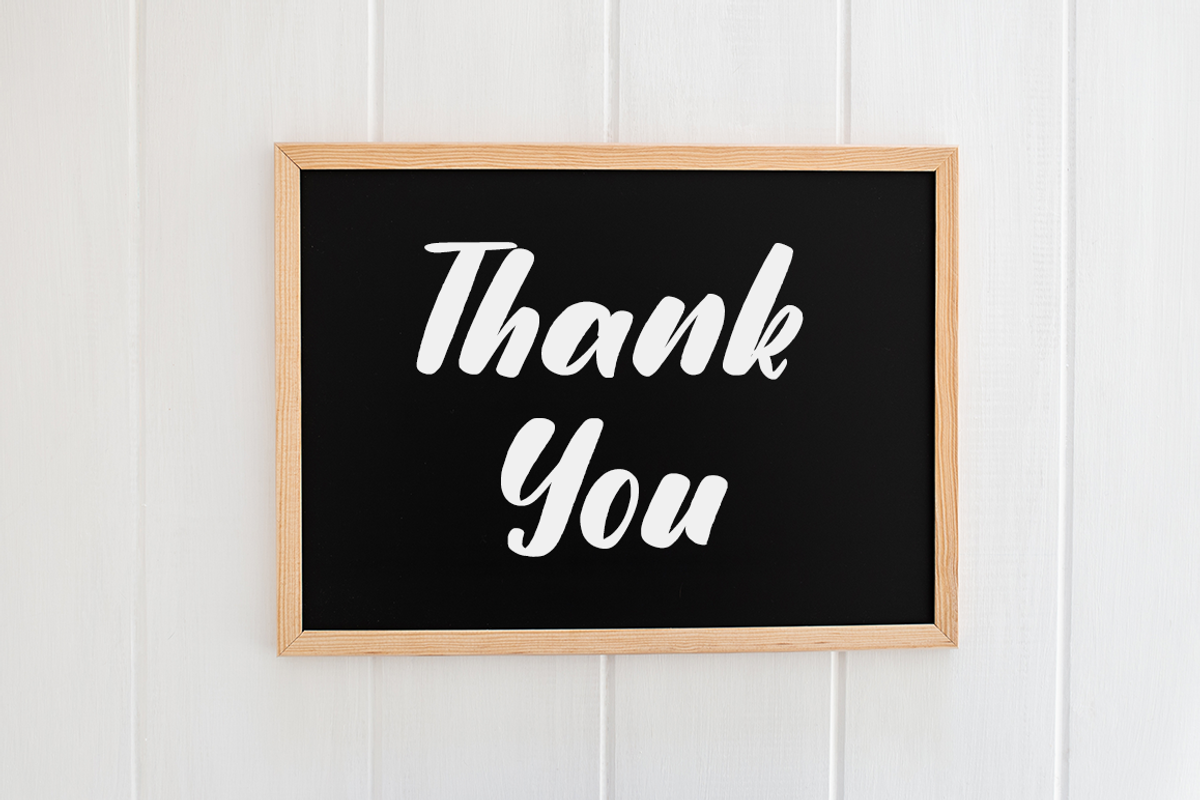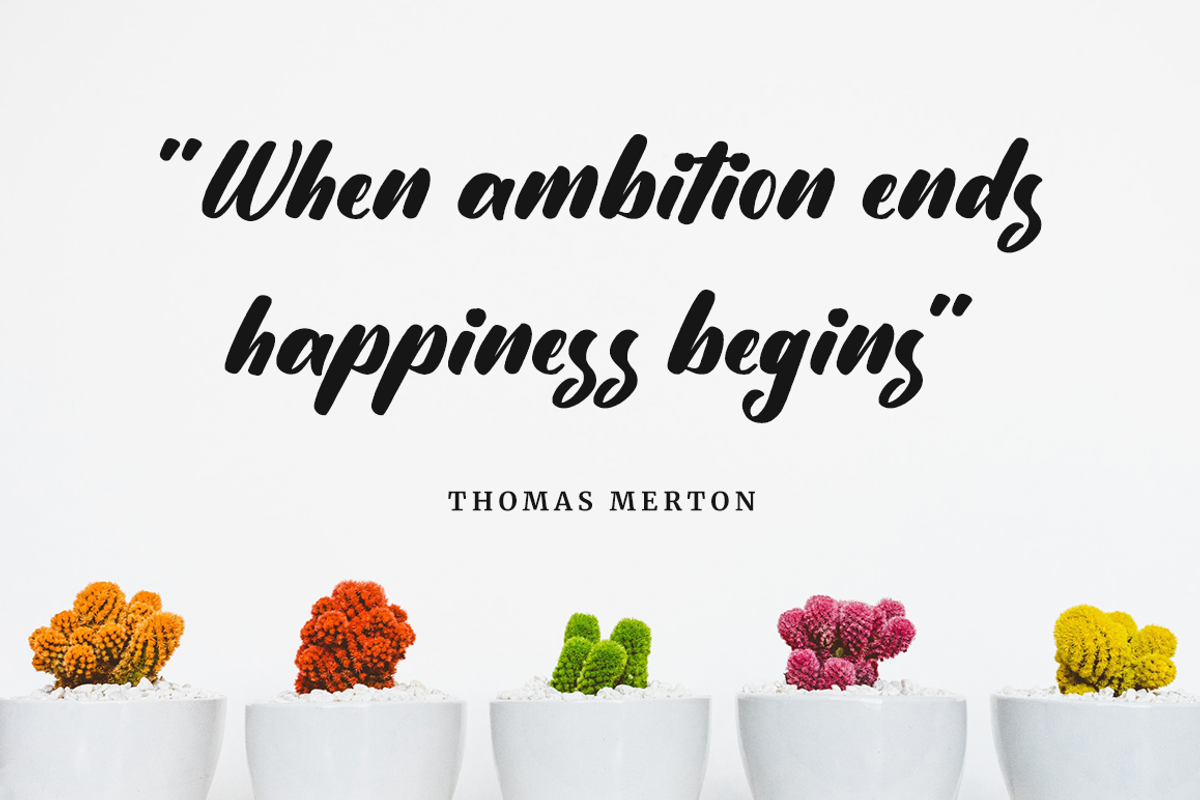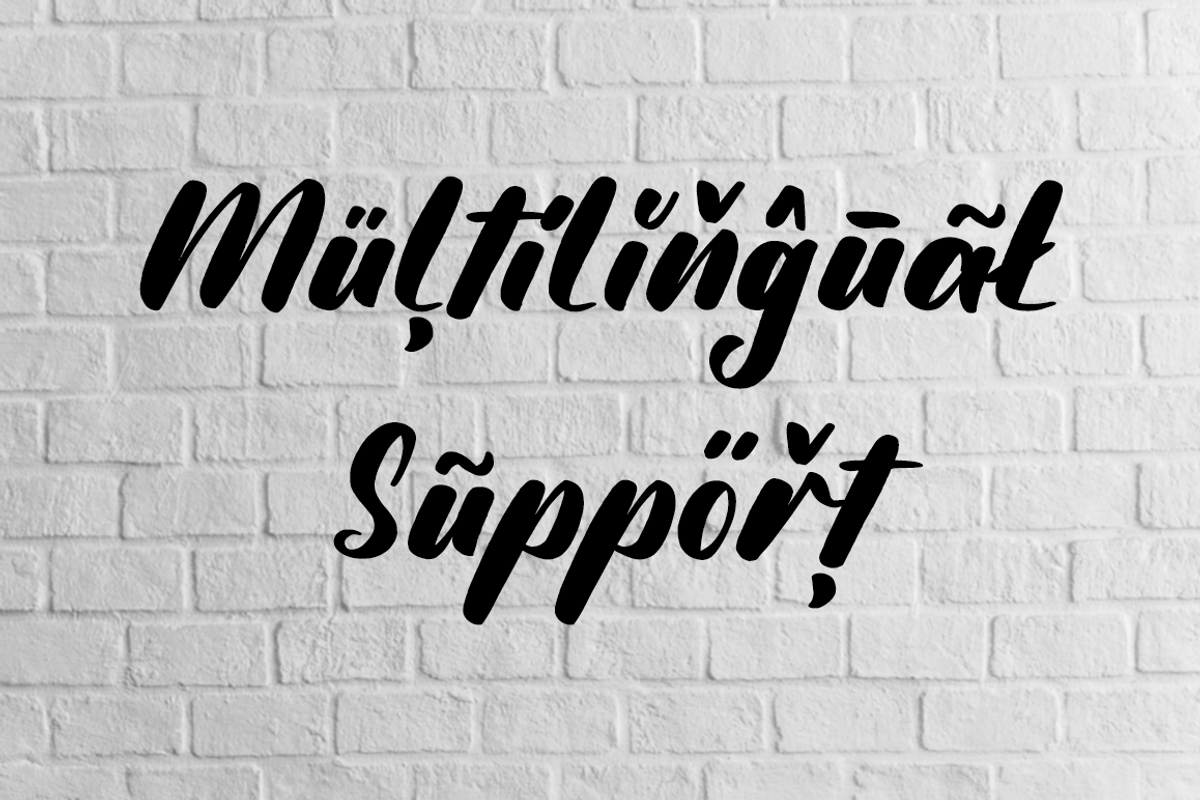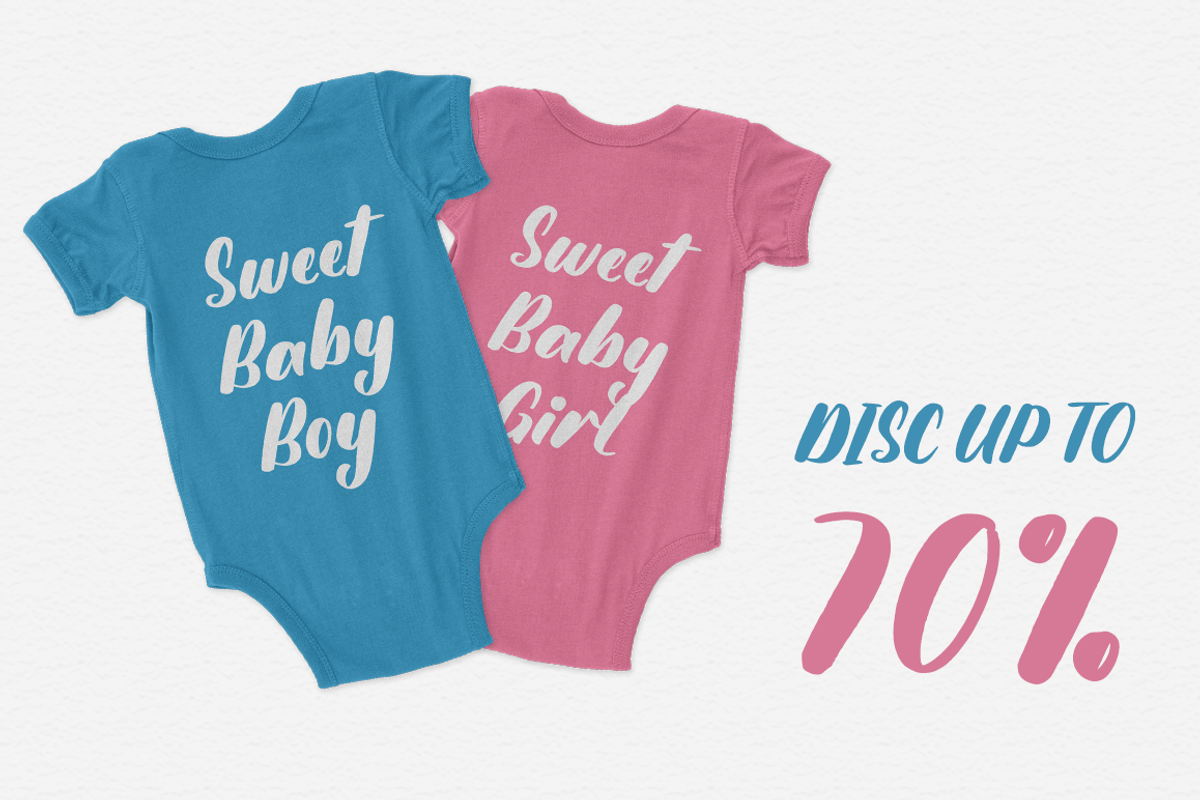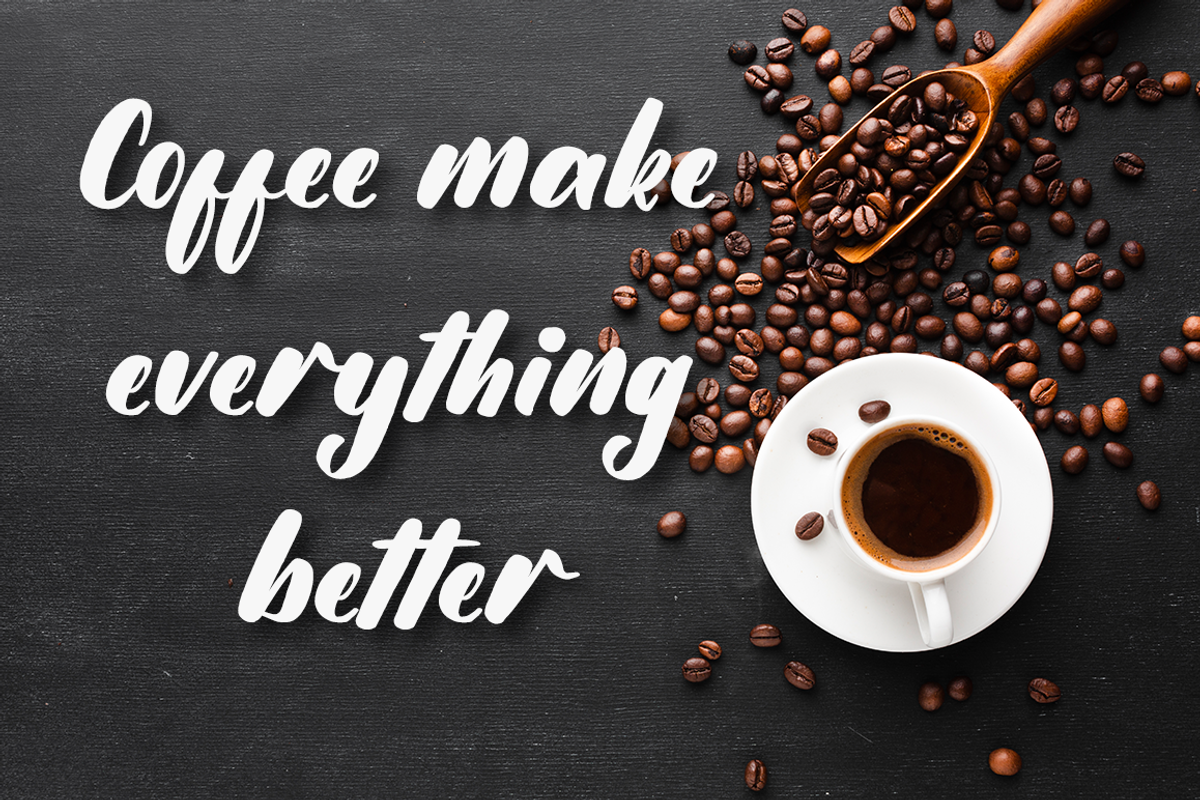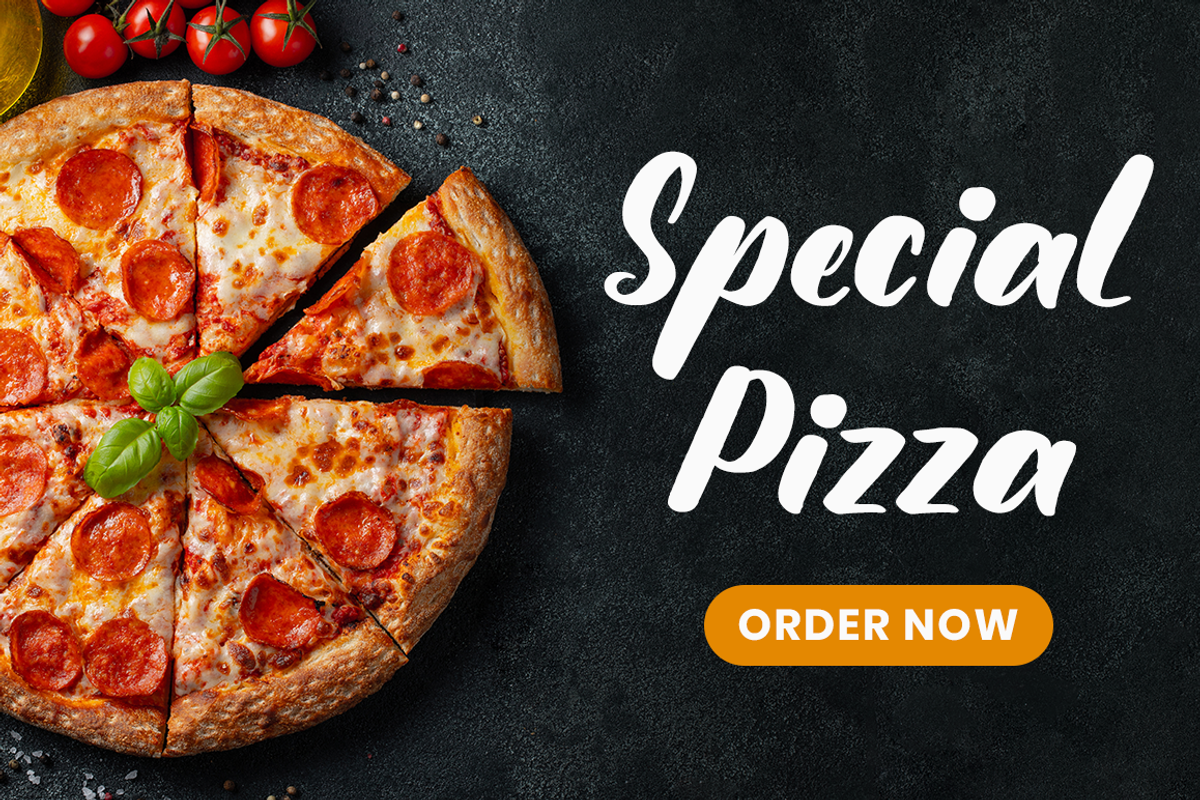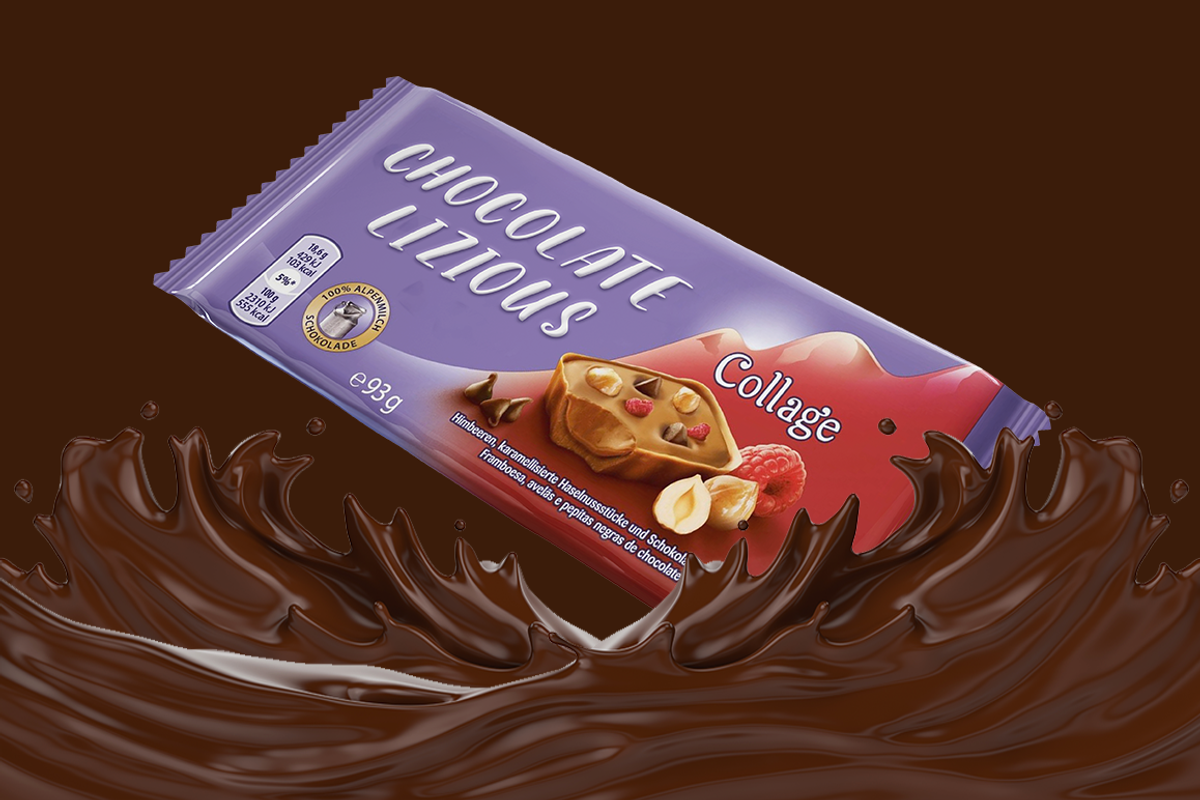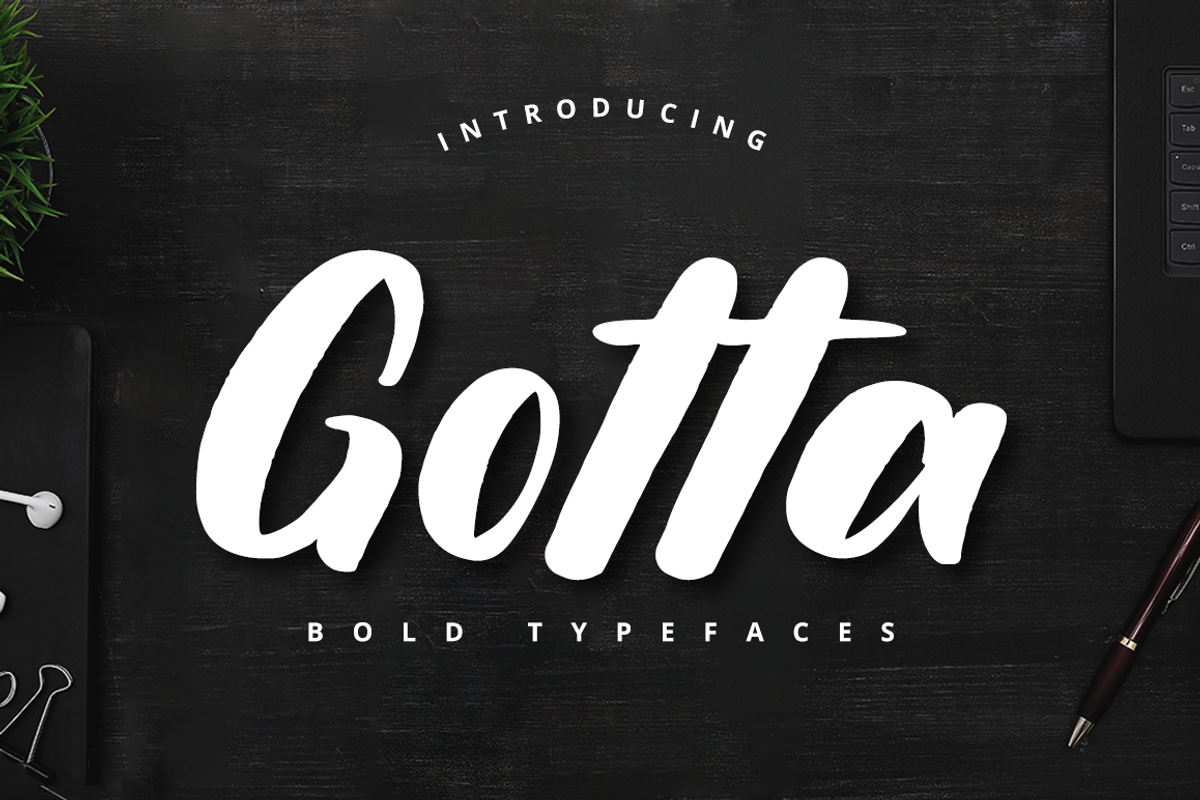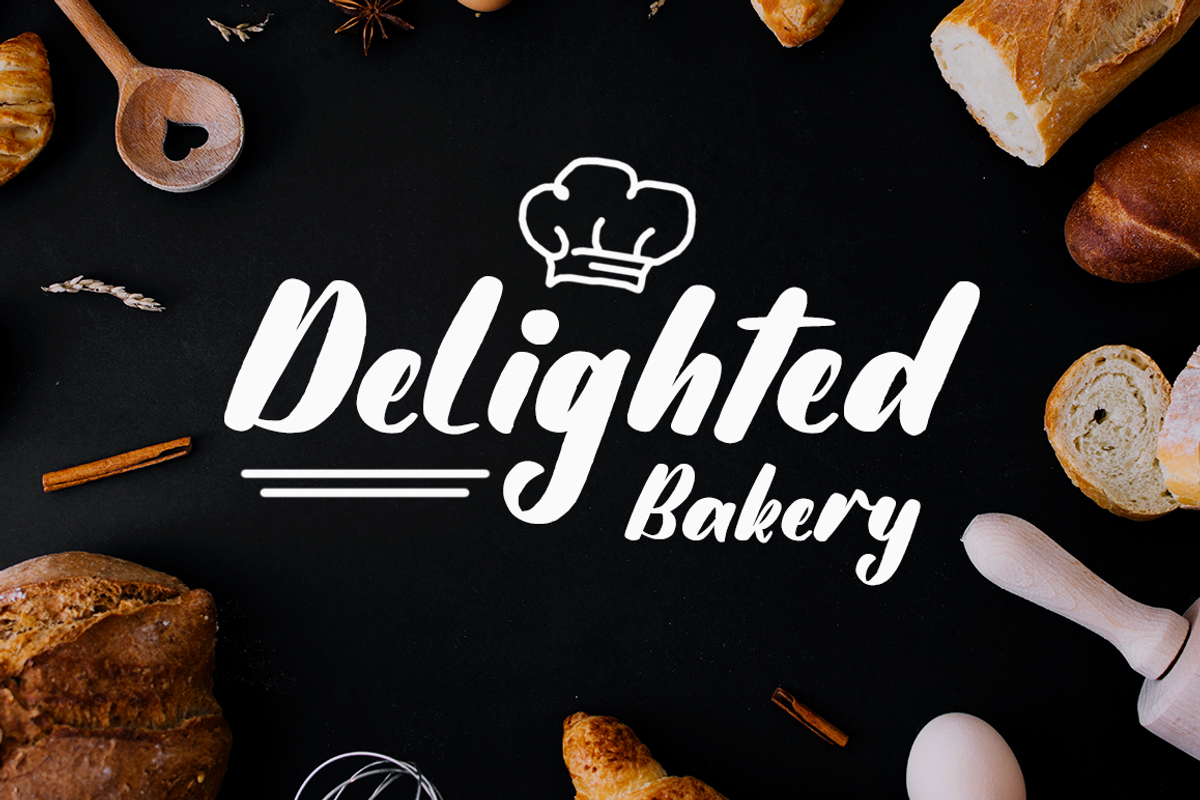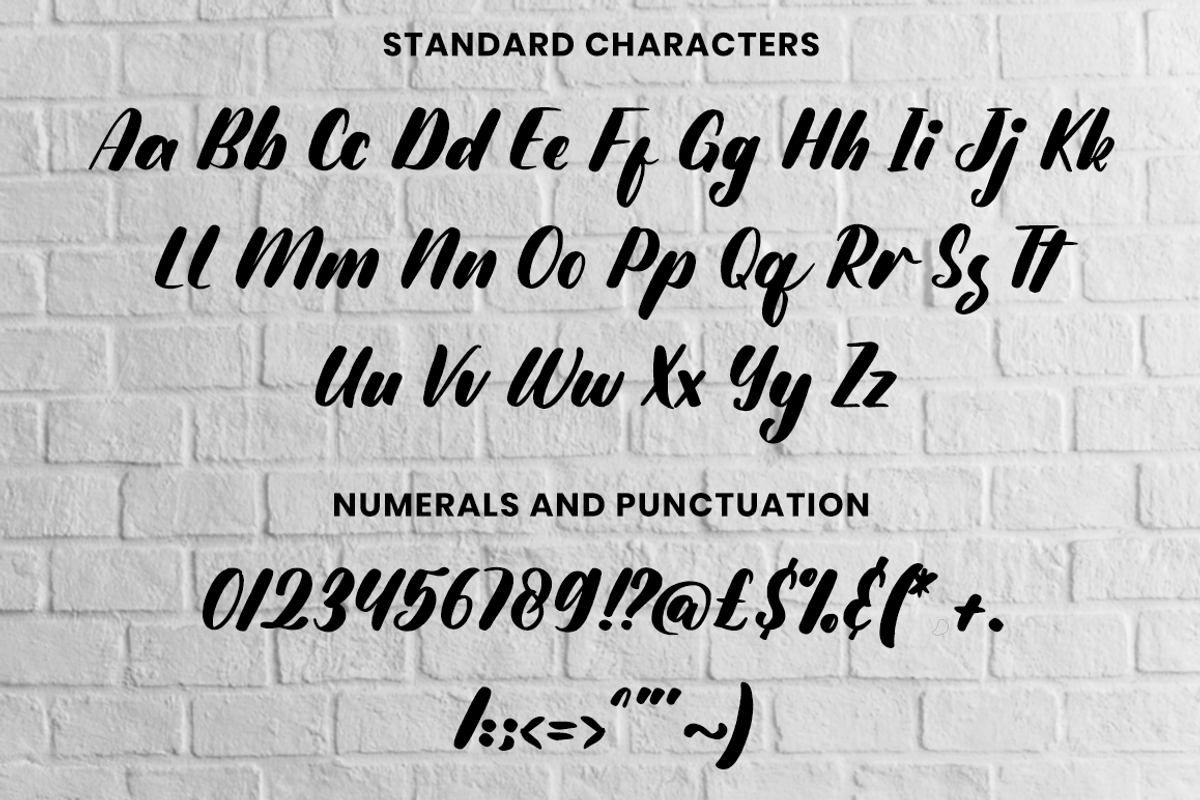
Gotta Bold Typefaces
Gotta is a cute and quirky handwritten font. It will add an incredibly joyful touch to your designs. Add this beautiful font to each of your creative ideas and notice how it makes them stand out!